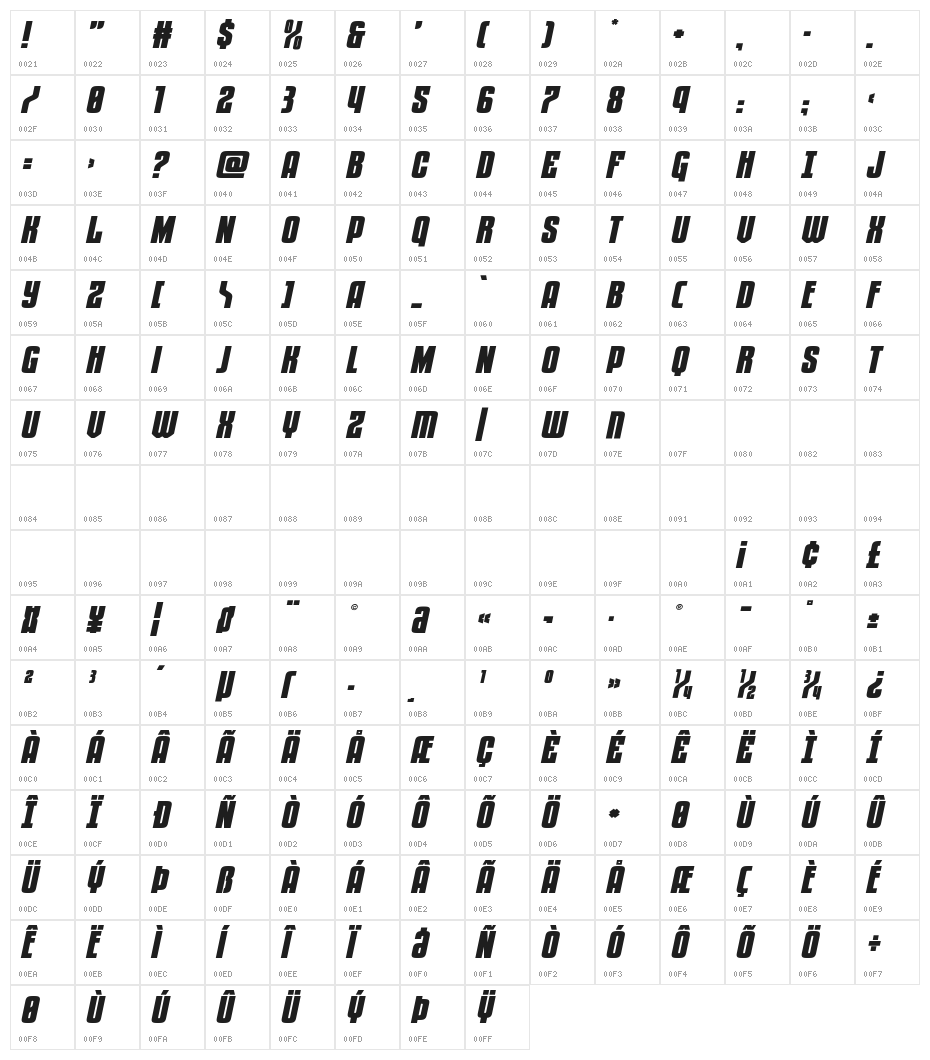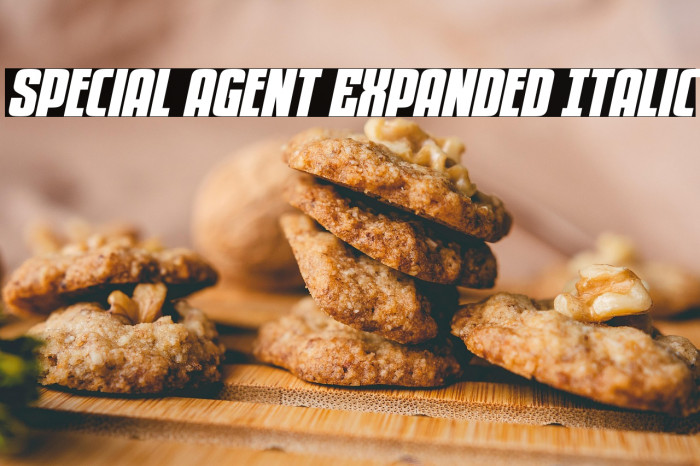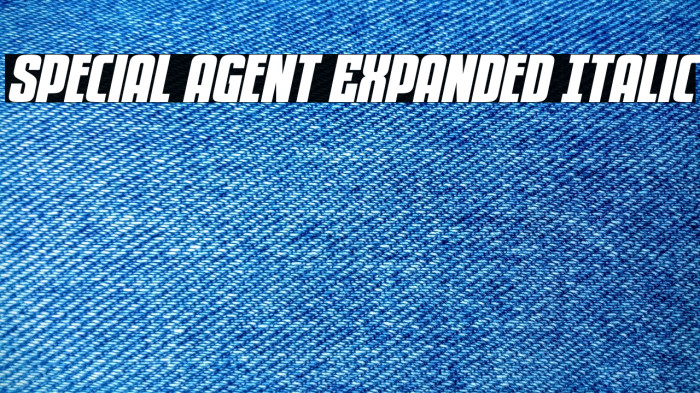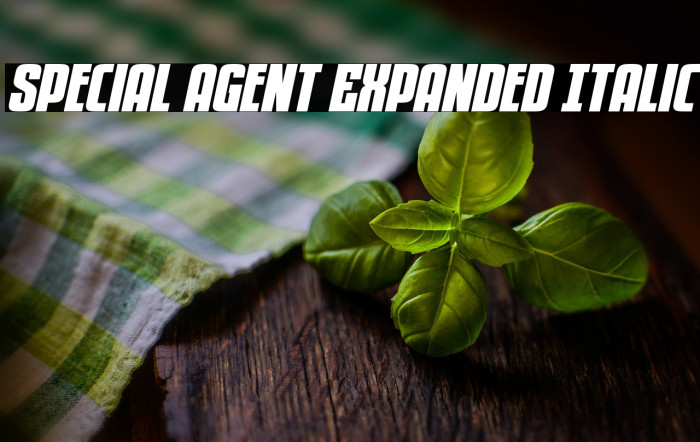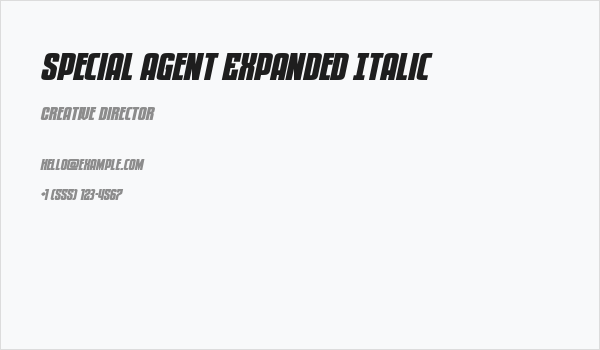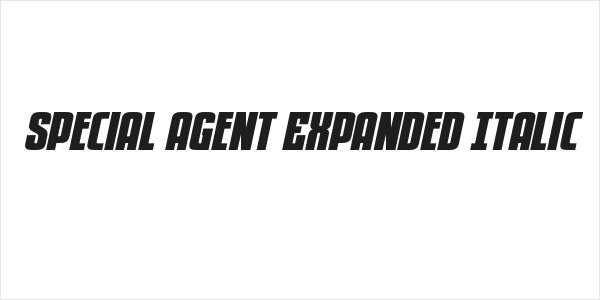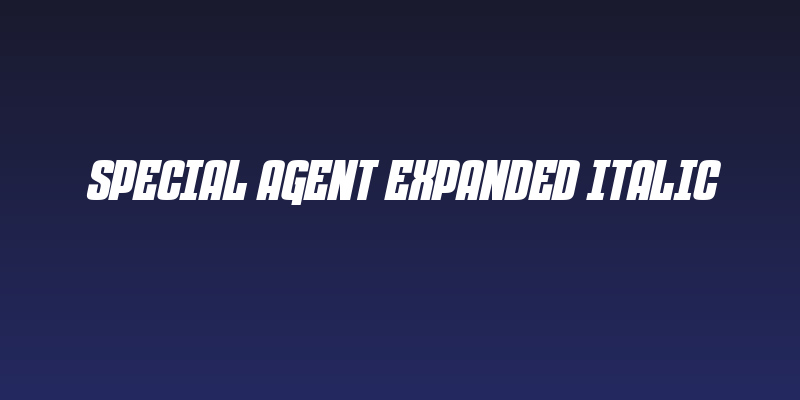
Special Agent Expanded Italic Font
Special Agent Expanded Italic Description
This font features a bold and dynamic style with an expanded and italicized form. The characters are robust and convey a sense of strength and urgency, making them ideal for impactful designs. The uppercase letters are prominent, with a slight slant that adds a sense of motion and energy. The numbers and special characters maintain the same boldness and slant, ensuring consistency across all elements. The overall design is modern and assertive, suitable for projects that require a strong visual presence.
Proposed ProjectsIdeal for sports branding, action movie posters, dynamic advertisements, and any design needing a strong, energetic presence.